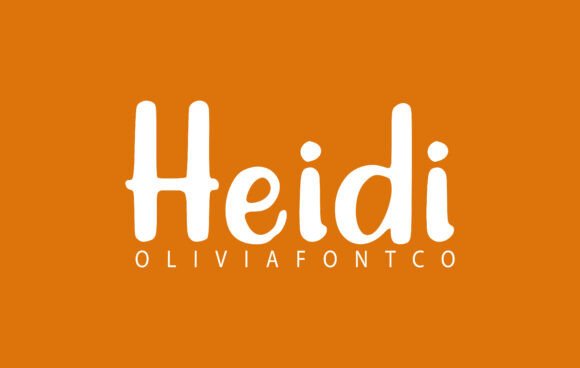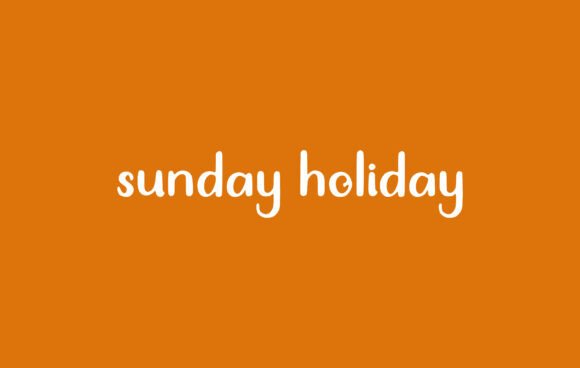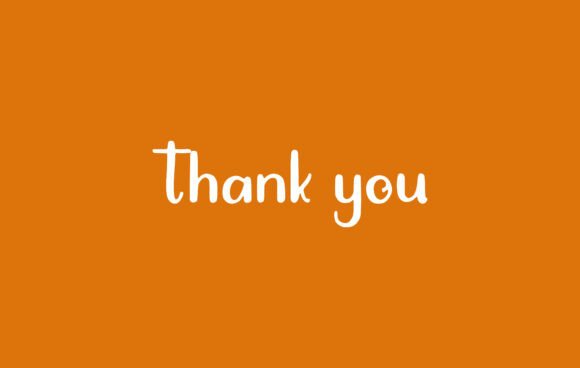
Heidi Font: A Cute Handwritten Font for Branding & Social Media Design
About the Heidi Font
The Heidi Font is here to transform your projects with its distinctive character and style. Heidi font is an authentic handwritten font with a romantic touch. Expertly designed to be a true favorite, this font has the potential to take your creative ideas to the highest level
Heidi’s romantic, handwritten style shines in headlines, short paragraphs, and branding applications where its expressive nature adds personality. It works exceptionally well for wedding invitations, social media graphics, and short-form marketing materials. However, its less-structured forms make it unsuitable for large blocks of body text or UI elements where high legibility is paramount.
Consider pairing Heidi with a clean sans-serif like Lato for a balanced contrast, or a classic serif such as Garamond for a more traditional feel. For a modern twist, a geometric sans-serif such as Montserrat would complement its handcrafted charm. The overall personality of Heidi is undeniably romantic and friendly, but maintains a level of sophistication.
Its inherent legibility makes it adaptable, but its best application lies in projects demanding a touch of warm, approachable elegance.
Heidi Font Usage Examples
Heidi Font Example